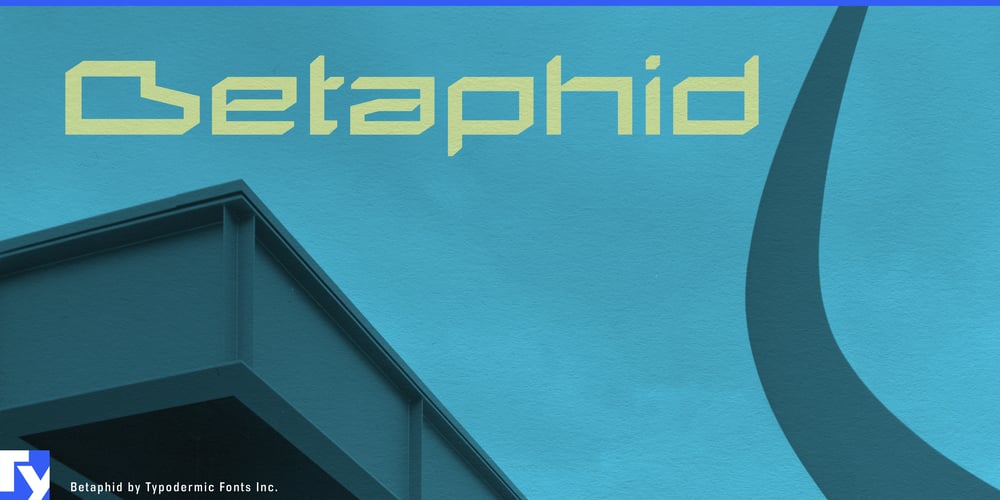
Betaphid
Betaphid font
Betaphid Font Family was designed by Ray Larabie and published by Typodermic. Betaphid contains 1 styles and family package options. Introducing Betaphid, a sleek display typeface that marries scientific precision with brutalist boldness. Inspired by the uncompromising lines of modern architecture, Betaphid strips typography to its essence, creating characters that are as functional as they are visually striking.This font doesn’t just look futuristic—it performs with mathematical accuracy. Its clean geometry enhances legibility and conveys information with laser-like focus, making it ideal for tech interfaces, scientific publications, and cutting-edge design projects. Despite its austere appearance, Betaphid is surprisingly versatile. It speaks fluently in a wide range of Latin-based European languages, ensuring your message resonates globally.Whether you’re designing for a tech startup, a research institute, or a sci-fi franchise, Betaphid provides the typographic foundation for designs that are both precise and visionary. It’s more than a font—it’s a tool for visual communication that’s as exact as a formula and as evocative as a glimpse into the future.Choose Betaphid when you need typography that works as hard as you do. It’s time to elevate your designs from modern to magnificently futuristic.